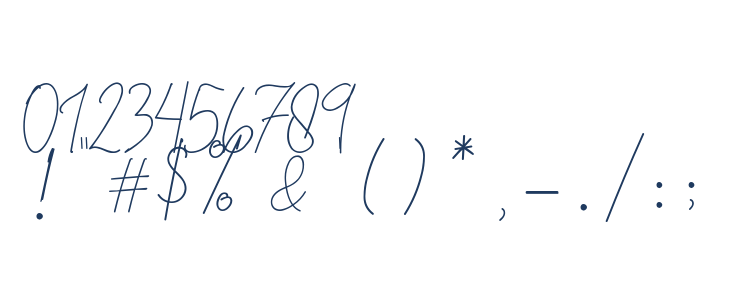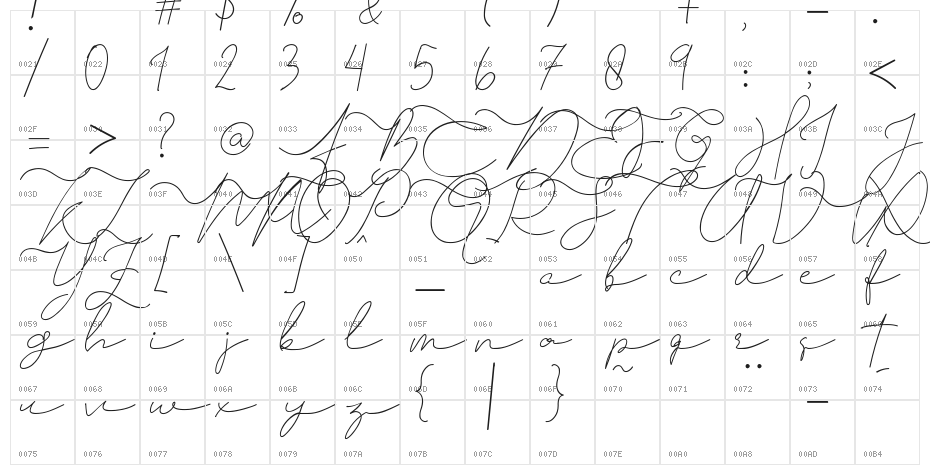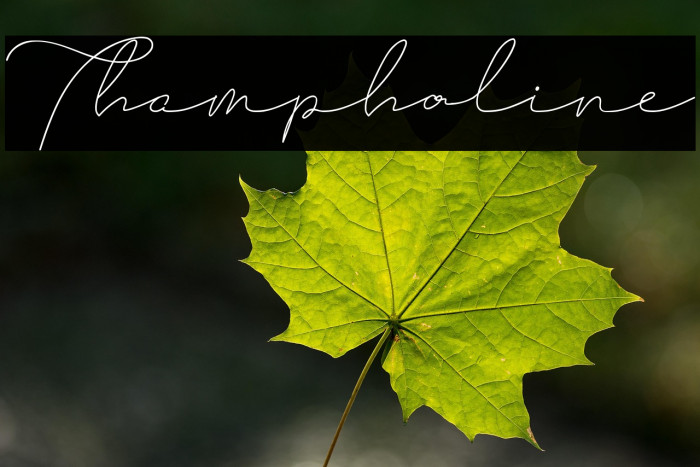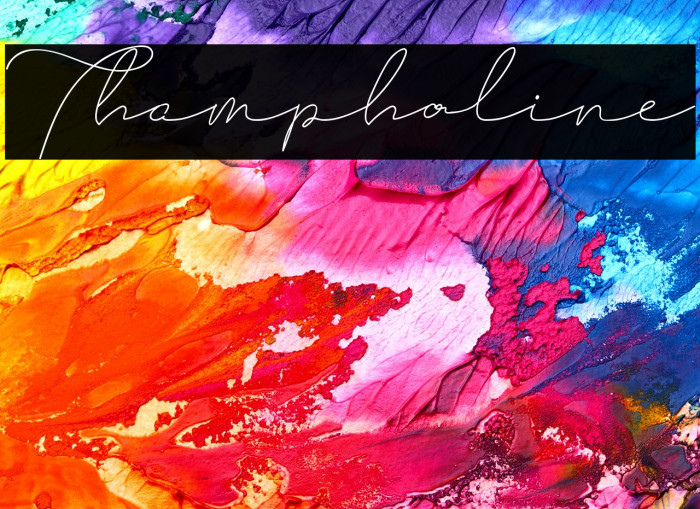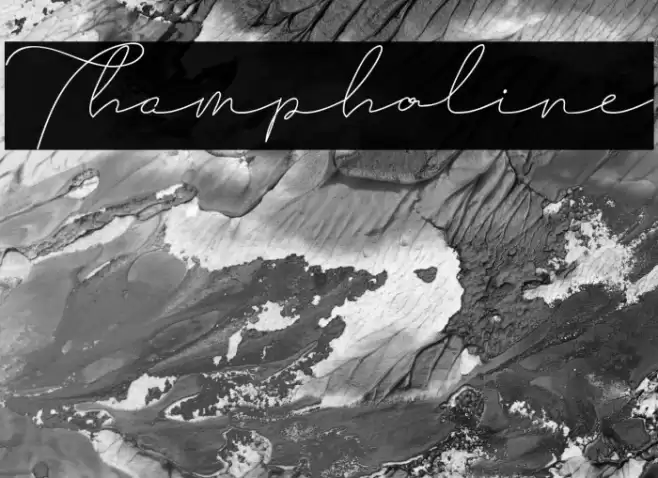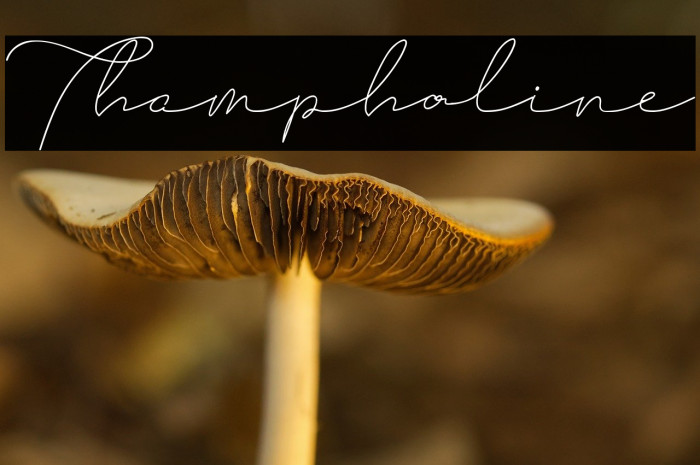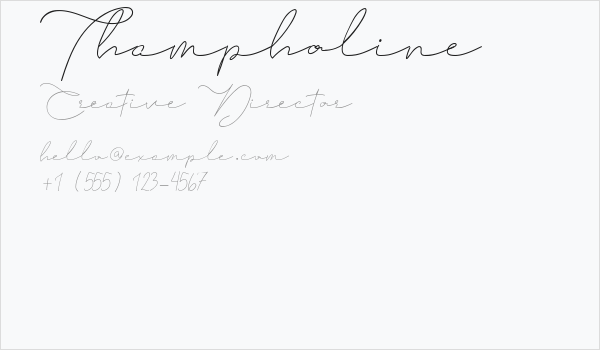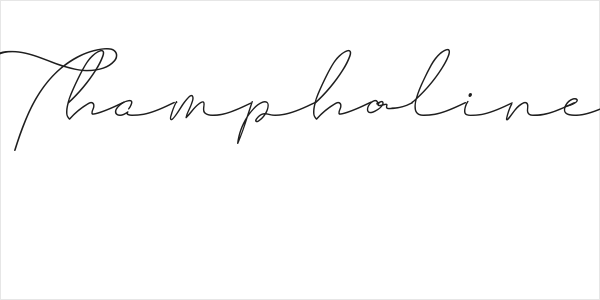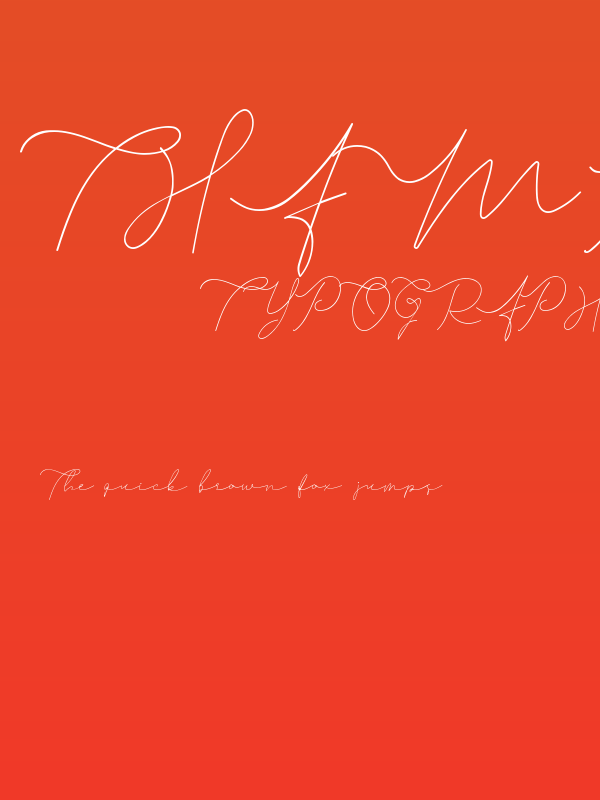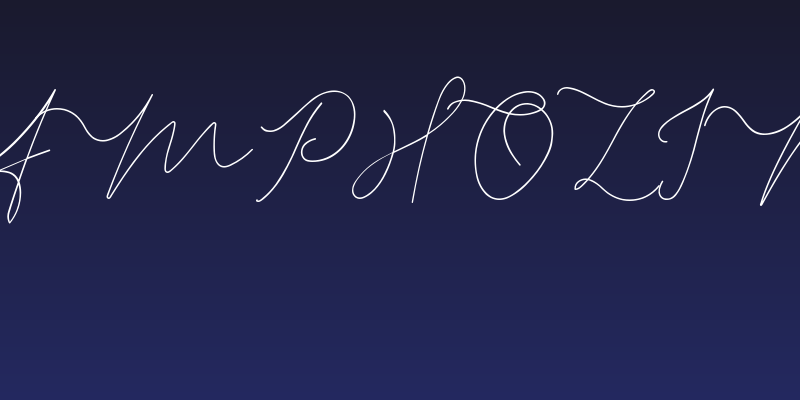
Thampholine Font
Thampholine Description
This font exhibits a delicate and flowing script style, characterized by its elegant and continuous strokes. The uppercase letters are gracefully connected, creating a sense of fluidity and movement. The lowercase letters maintain a consistent style, with smooth curves and loops that enhance the font's overall elegance. The numerals are uniquely styled, with a modern twist that complements the script's aesthetic. Special characters are thoughtfully designed to match the font's sophisticated appearance, making it suitable for a variety of creative applications.
Overall StyleElegant
Use CaseLogos, Invitations, Decorative text
Proposed ProjectsIdeal for wedding invitations, greeting cards, branding, and elegant logo designs.